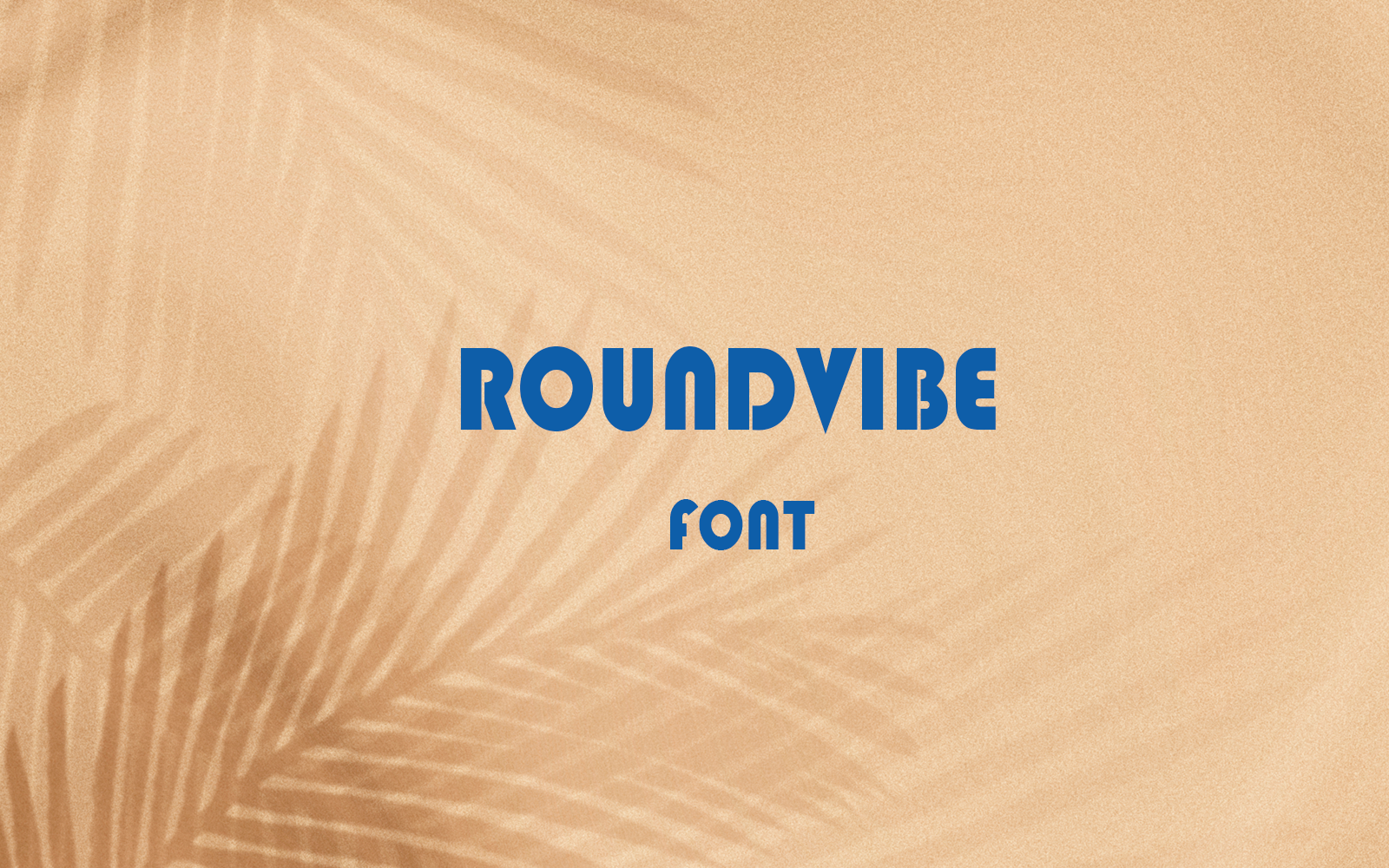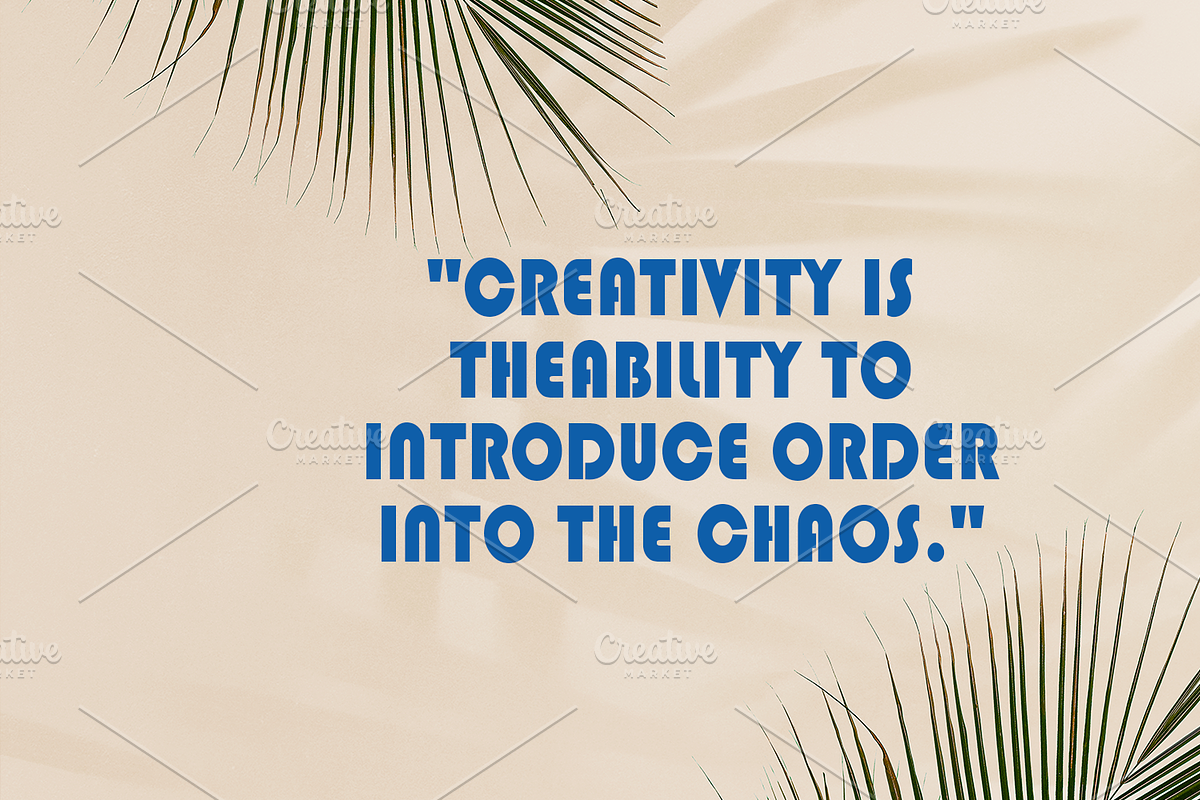
RoundVibe Font-021-24
Introducing a bold yet welcoming typeface, with soft, circular curves that give it a unique and approachable feel. This standout font combines strength with warmth,
creating a design that's both modern and creative. Its rounded edges add a touch of friendliness while maintaining a strong presence, making it ideal for high-energy events, vibrant posters, and exciting occasions. Perfect for events that want to stand out and make a lasting impression, this font adds a dynamic and fresh vibe to your designs.